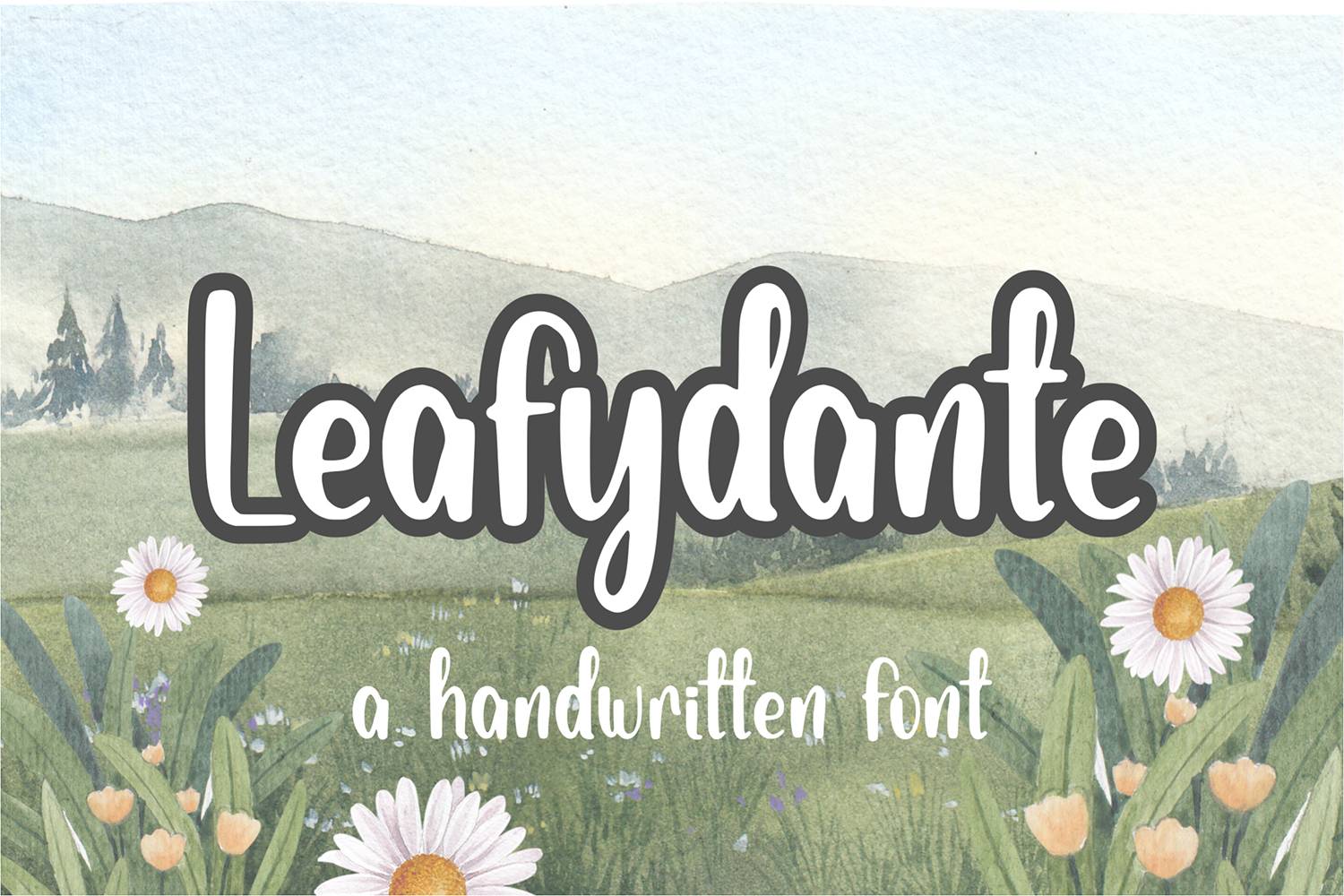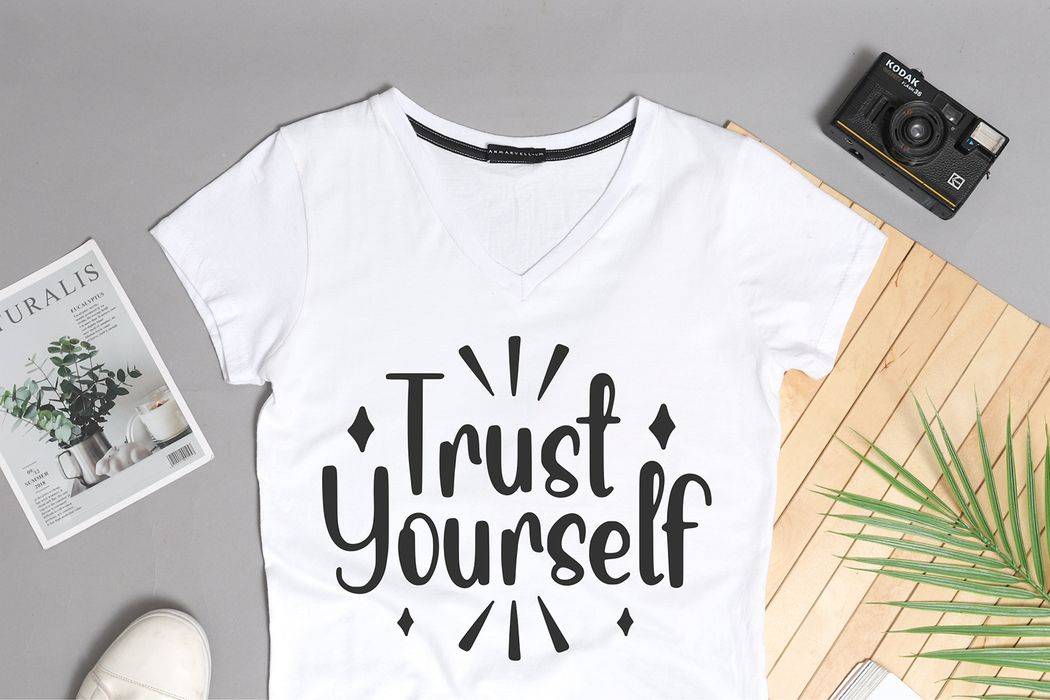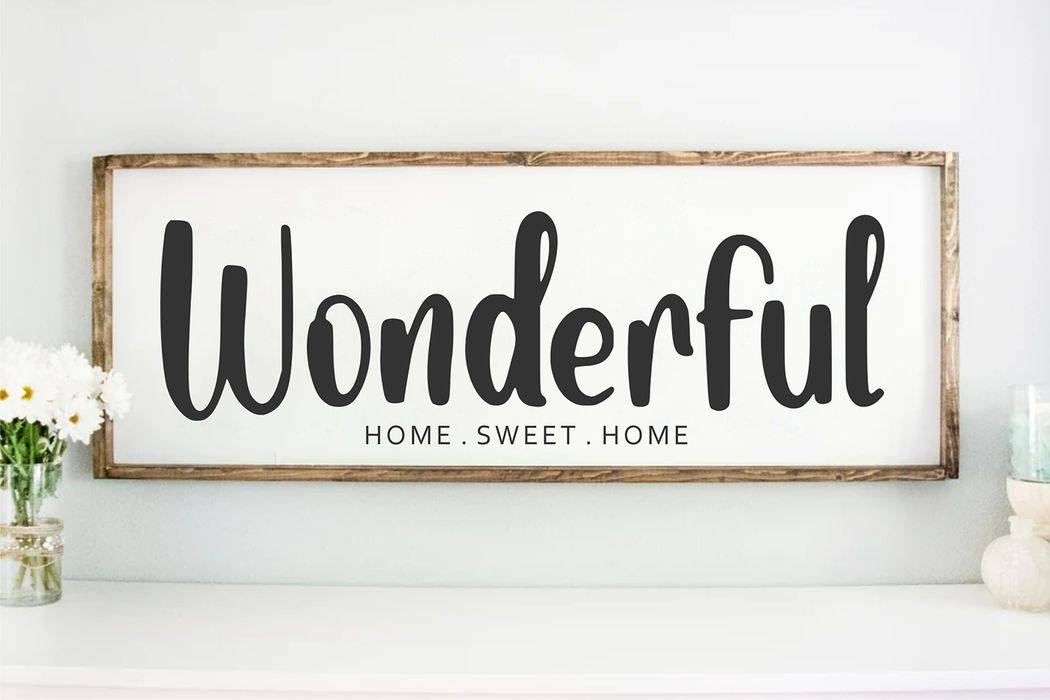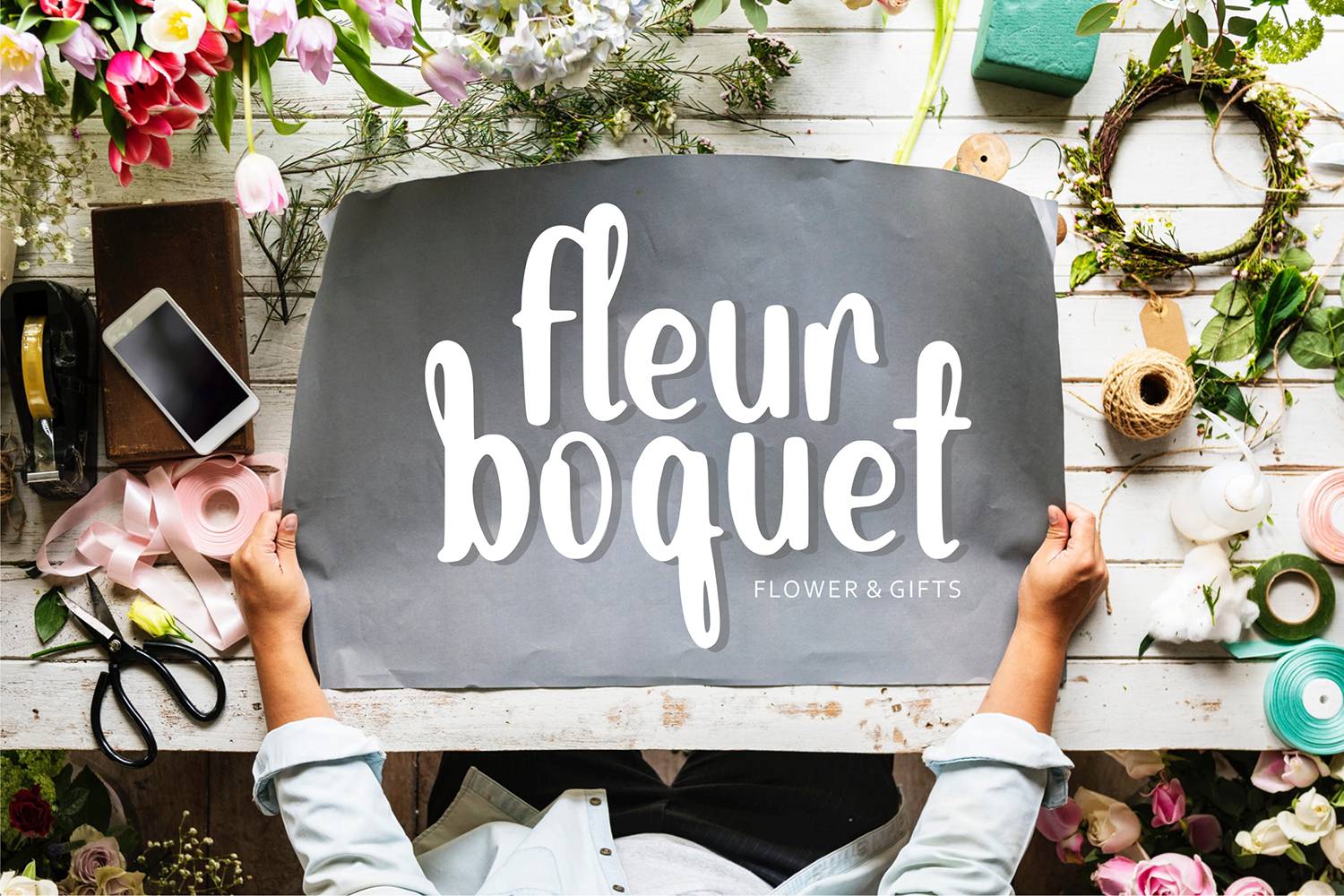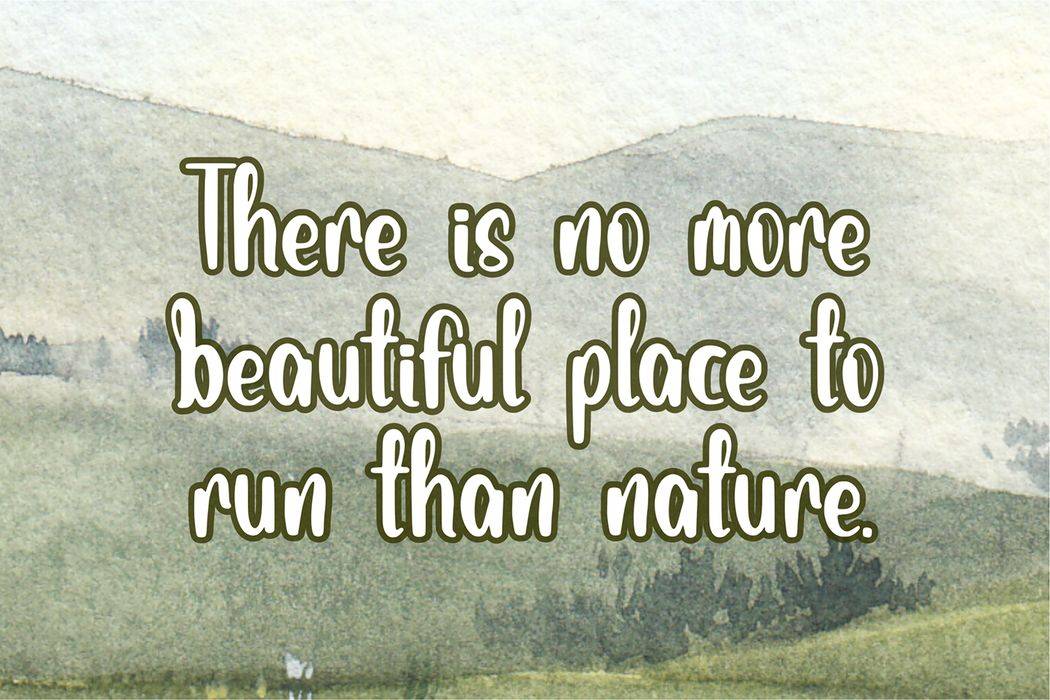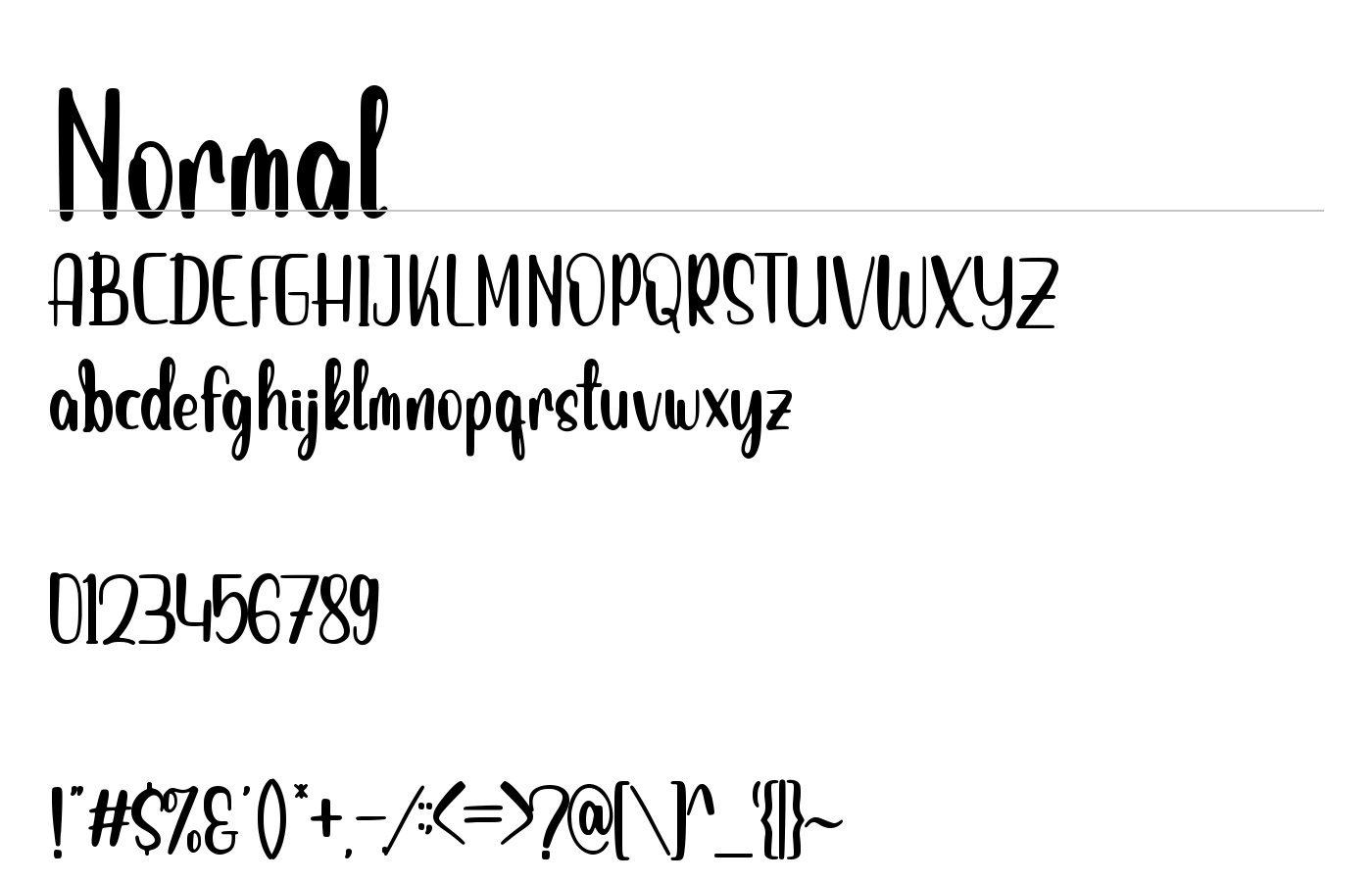
Leafydante is a quirky, tall sans serif font with playful, hand-drawn qualities that give it a casual and friendly vibe. Its narrow letterforms and uneven strokes create a whimsical, approachable style that’s perfect for creative projects, informal branding, or fun headlines. This font works well where a distinctive, lighthearted personality is needed to stand out while remaining highly legible.
Leafydante Font
About Leafydante Font